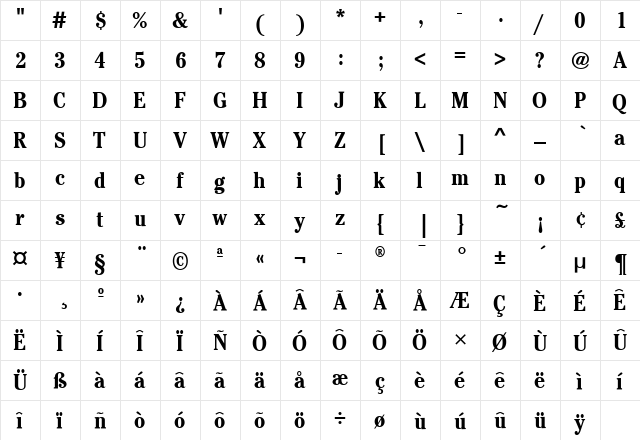
CheltenhamCdITC Bold Font Preview
CheltenhamCdITC Bold
CheltenhamCdITC Bold Font Details
Design Context for CheltenhamCdITC Typeface
CheltenhamCdITC is a composed and adaptable typeface that performs quietly and consistently across a wide range of design contexts. Its bold stroke weight gives it real presence on the page.